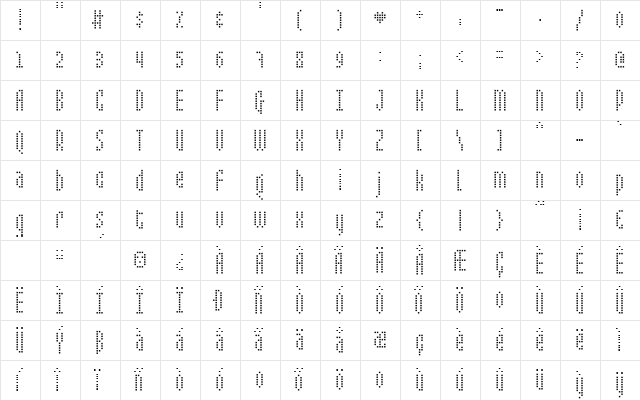
Mixelate II Regular
Design Context for Mixelate II Typeface
Mixelate II is a composed and adaptable typeface that performs quietly and consistently across a wide range of design contexts.